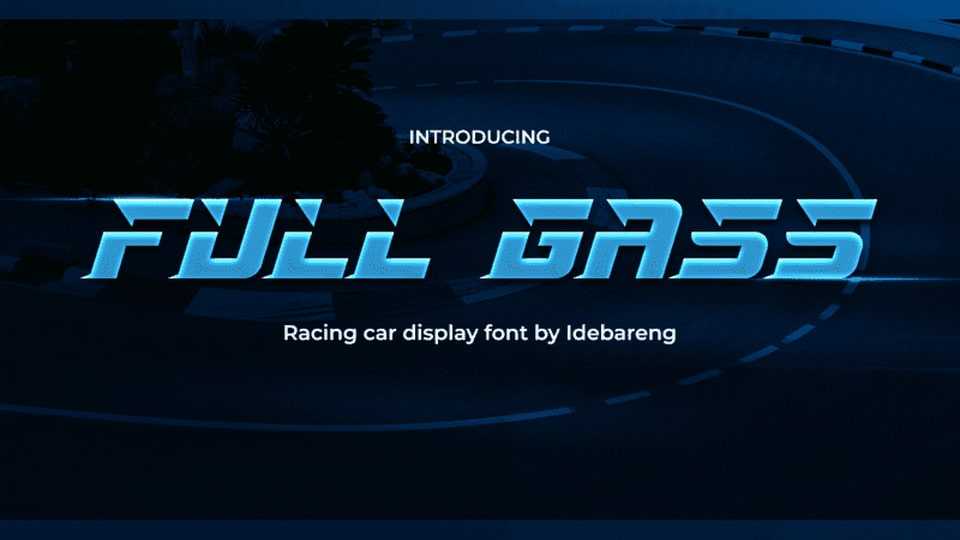
Download Full Gass font, the ultimate racing car display font that will take your designs to the next level. With its bold, powerful and dynamic design, Full Gass font is perfect for all your racing-themed projects.
Designer: IDEBARENG